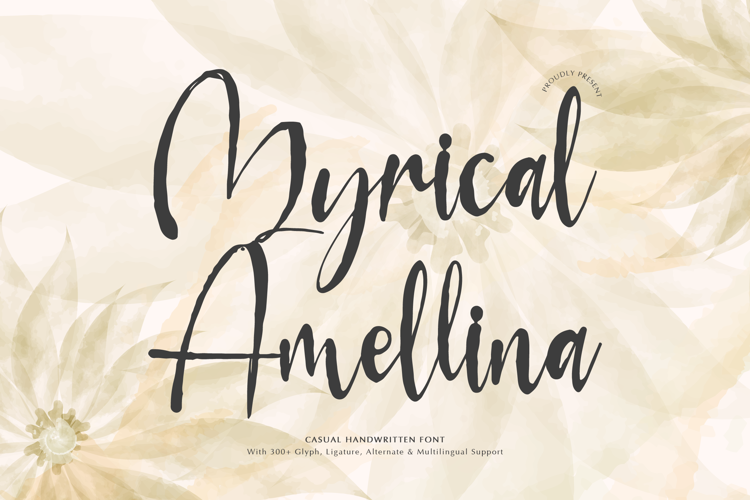
Myrical Amellina Font
Myrical Amellina | Casual Handwritten is suitable for any projects such as: logos, branding projects, homeware designs, product packaging, mugs, quotes, posters, shopping bags, t-shirts, book covers, name card, invitation cards, greeting cards, label, photography, watermark, special events, and all your other lovely projects that need a Casual Handwritten taste.